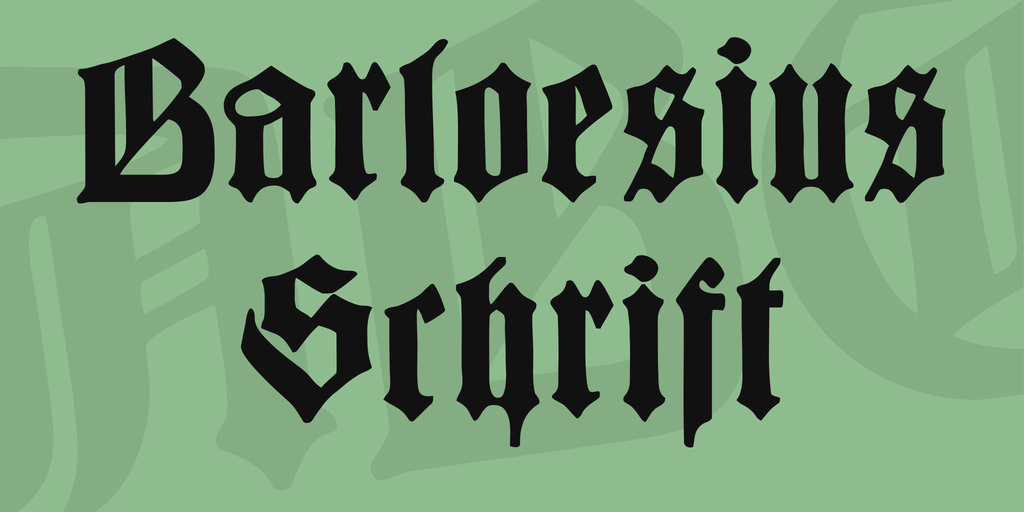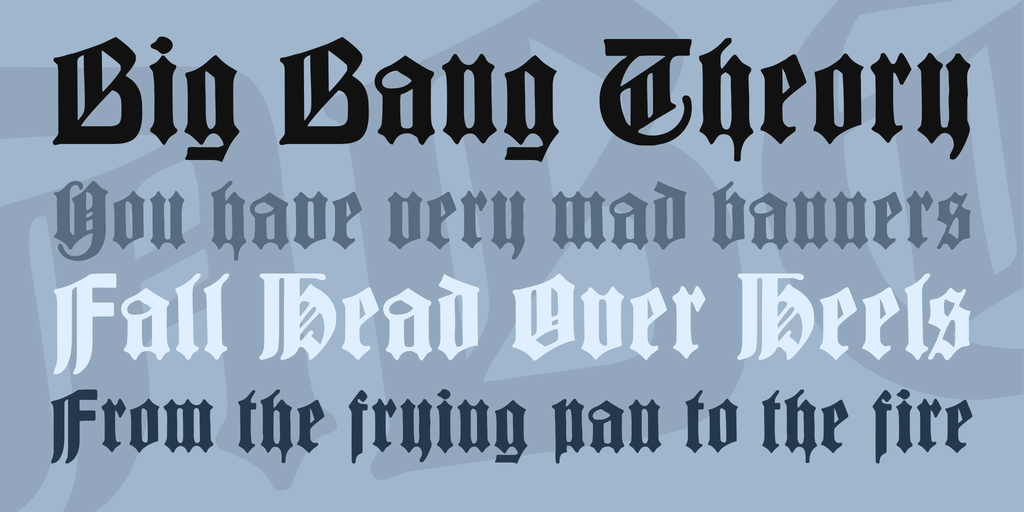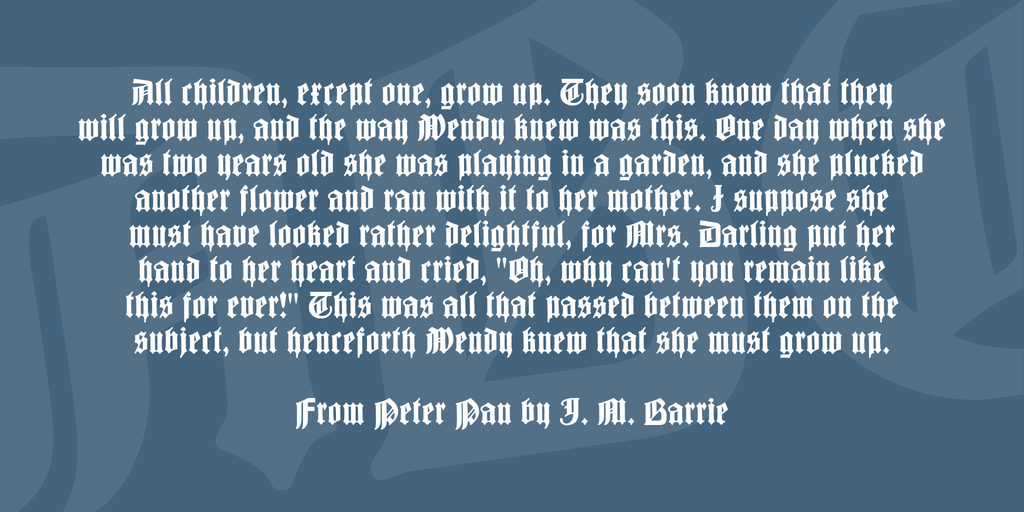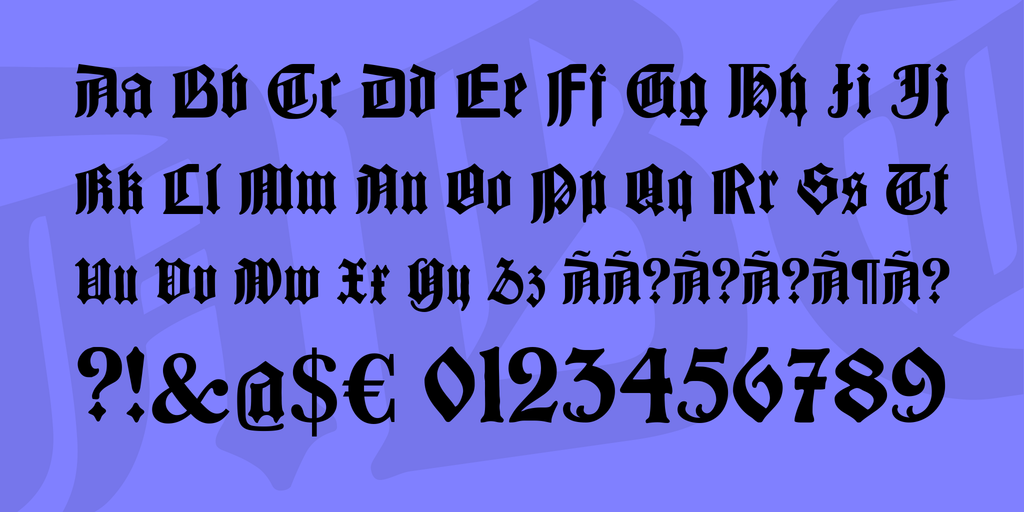
Barloesius Schrift Font
Barloesius Schrift Font Made by Peter Wiegel
I do not have too much to say about this font, except that it was designed by Georg Barlösius and first published in 1906 by the the Bauer foundry (Bauerschen Gießerei).
Georg Barlösius, born in Magdeburg on June 8, 1864, died on July 11, 1908, was a painter, illustrator, graphic artist and lithographer. He studied at the School of Applied Arts in Berlin and at the Academy in Munich and was then active in Berlin. He designed 2 fonts, Barloesius Schrift and a slightly rounder book typeface.